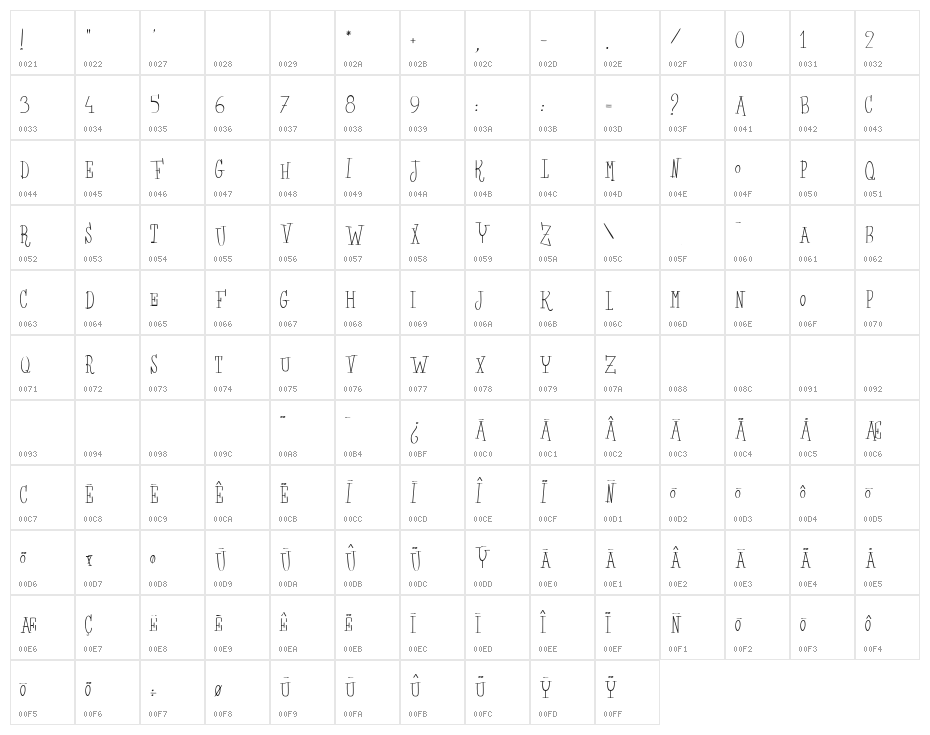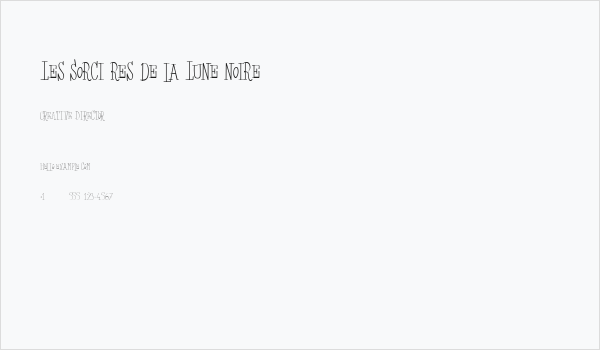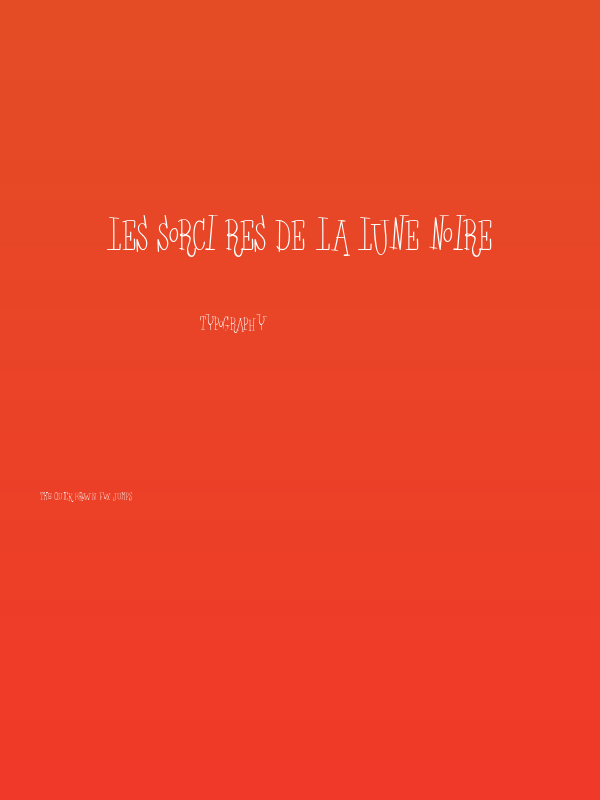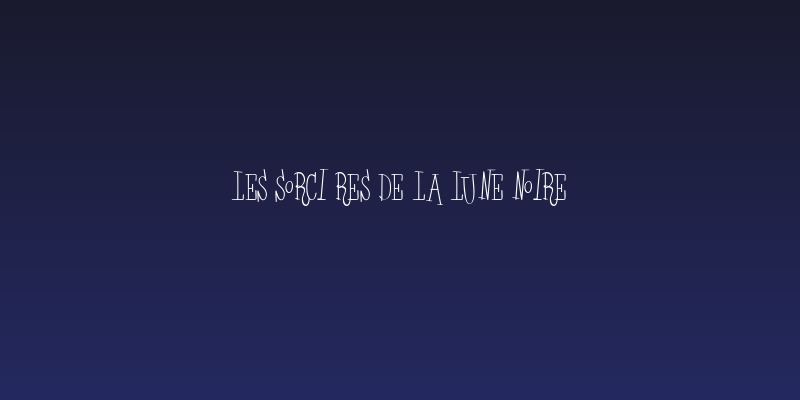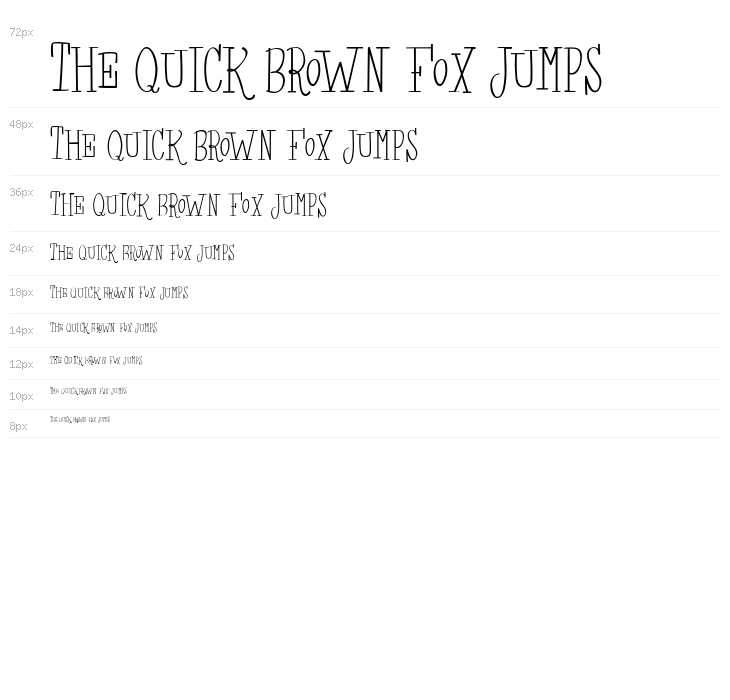
Les Sorcires de la Lune noire Font
Les Sorcires de la Lune noire Description
This font features a whimsical and playful design, characterized by its unique and irregular letterforms. The uppercase letters exhibit a quirky style with varying heights and angles, giving each character a distinct personality. The lowercase letters maintain this playful theme, with some characters having exaggerated curves and others featuring unexpected twists. The numbers are consistent with the overall style, offering a fun and engaging appearance. Special characters are creatively designed, adding to the font's charm. This font is ideal for projects that require a touch of creativity and individuality.
| Proposed Projects | Ideal for children's books, creative posters, playful branding, and whimsical invitations. |